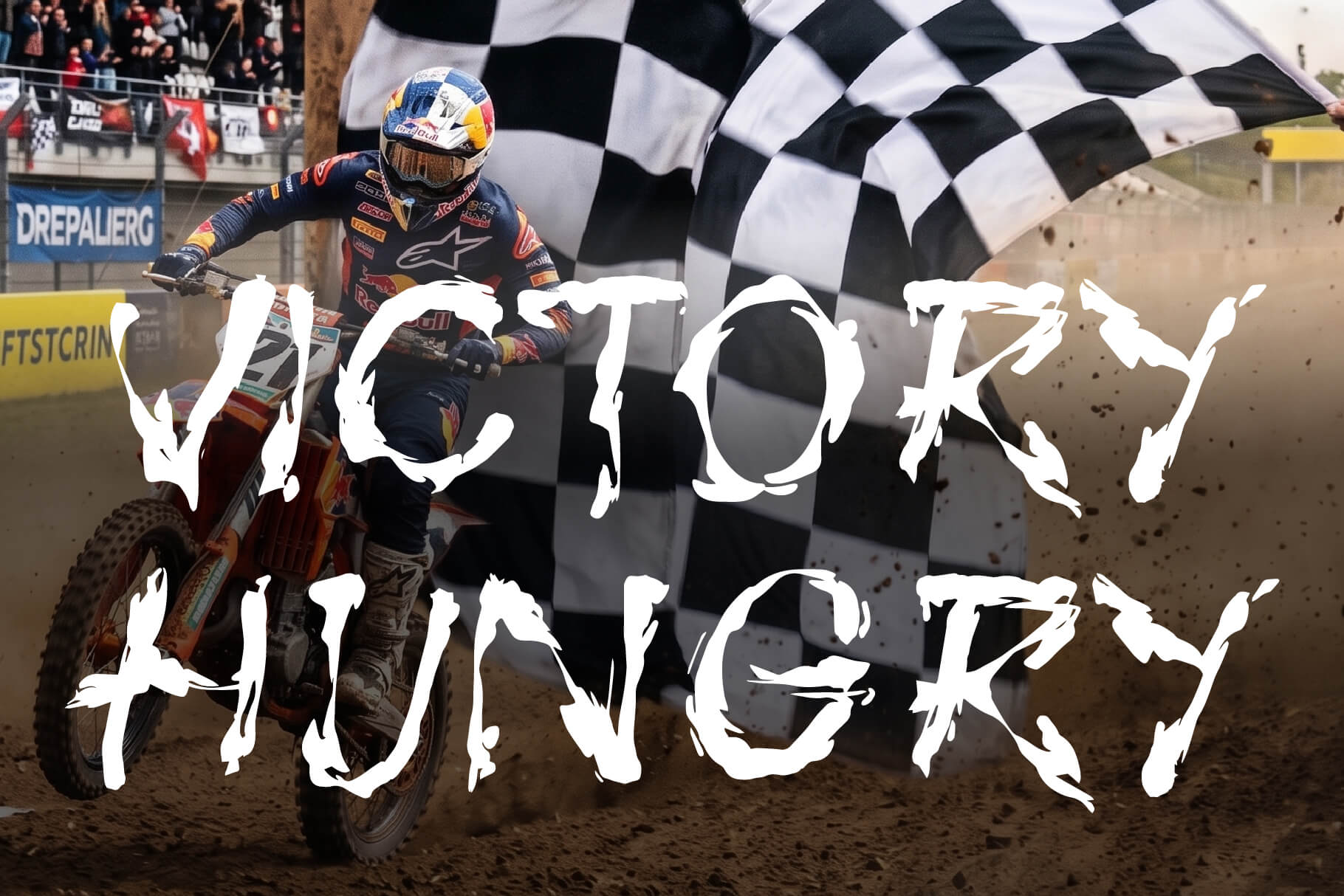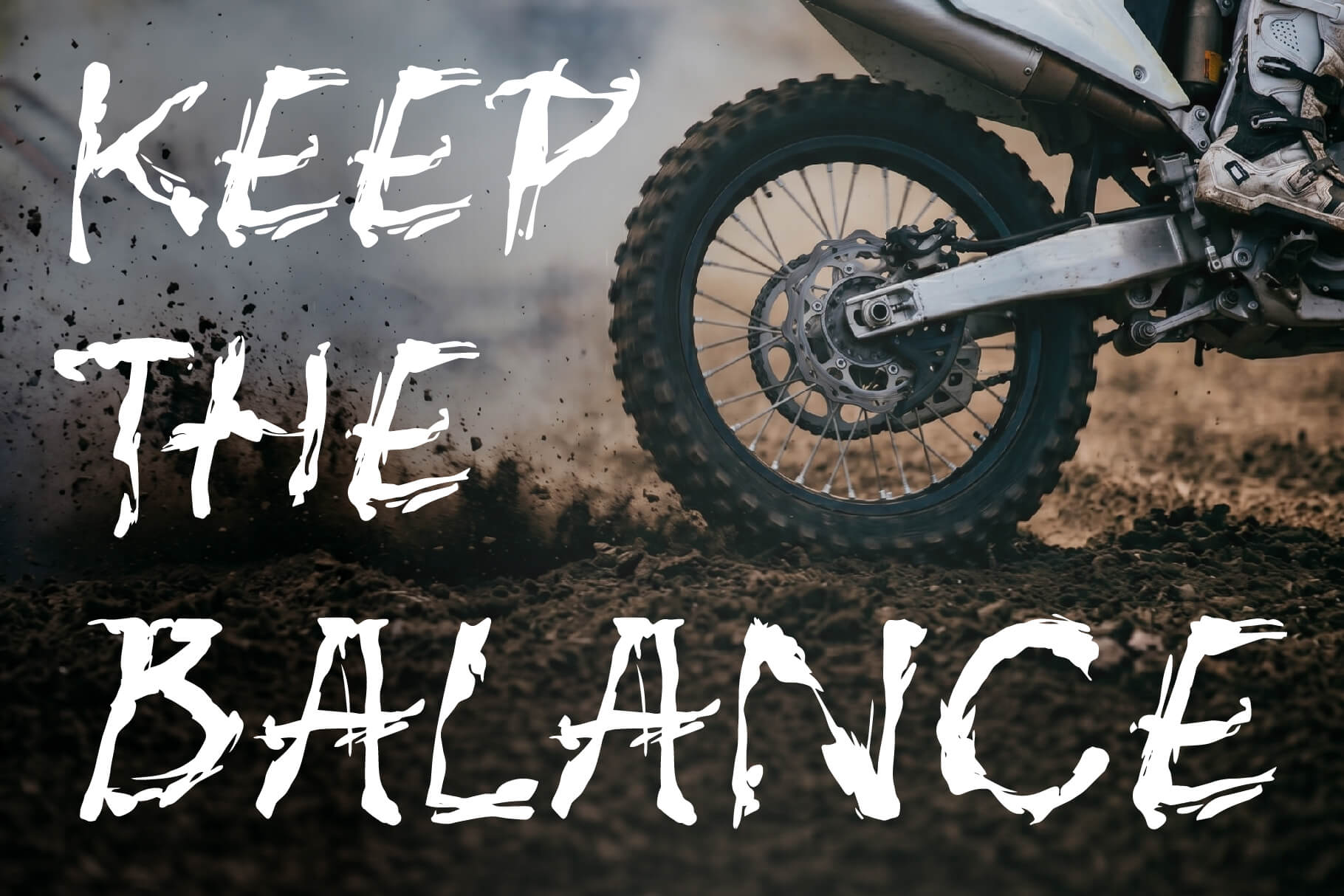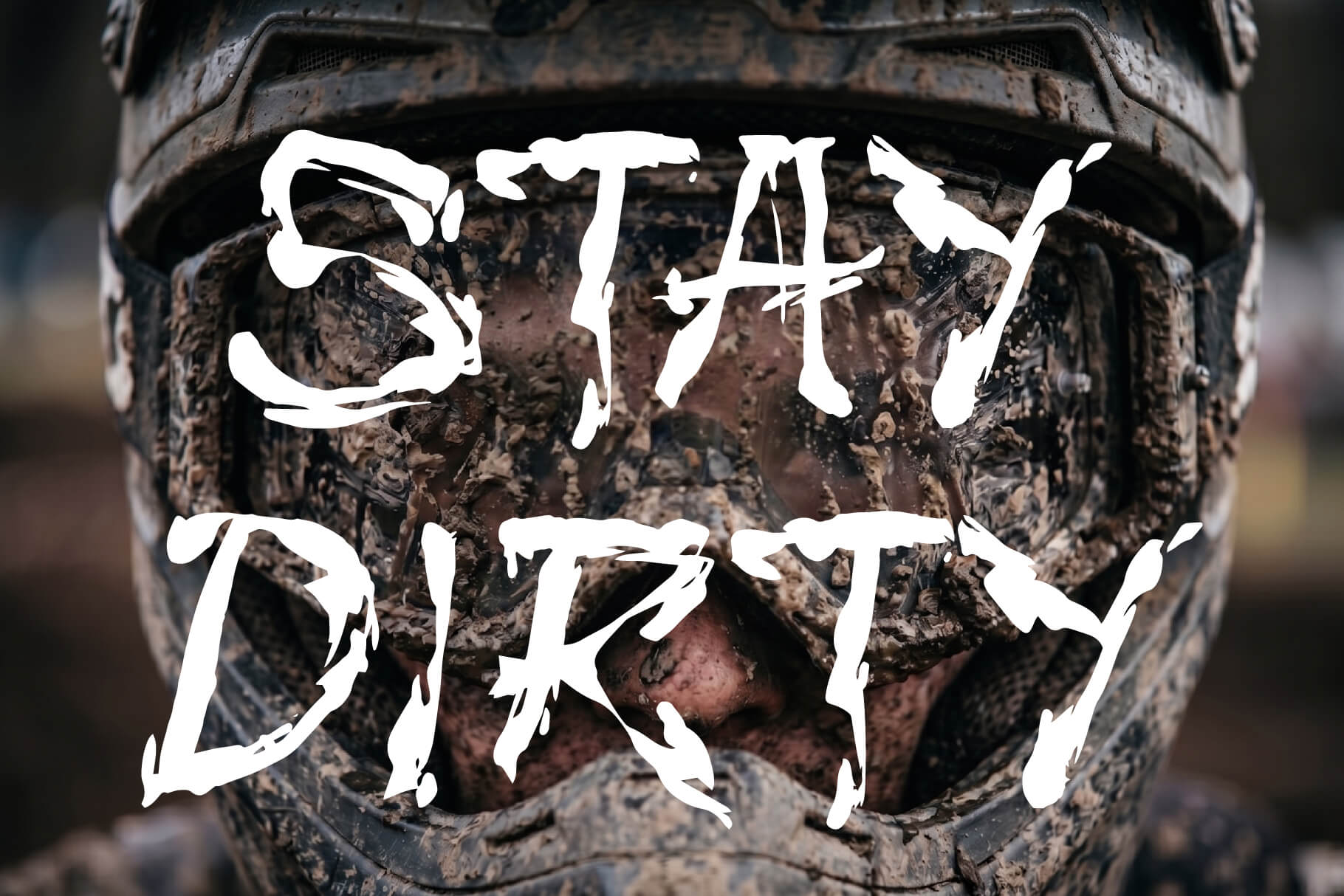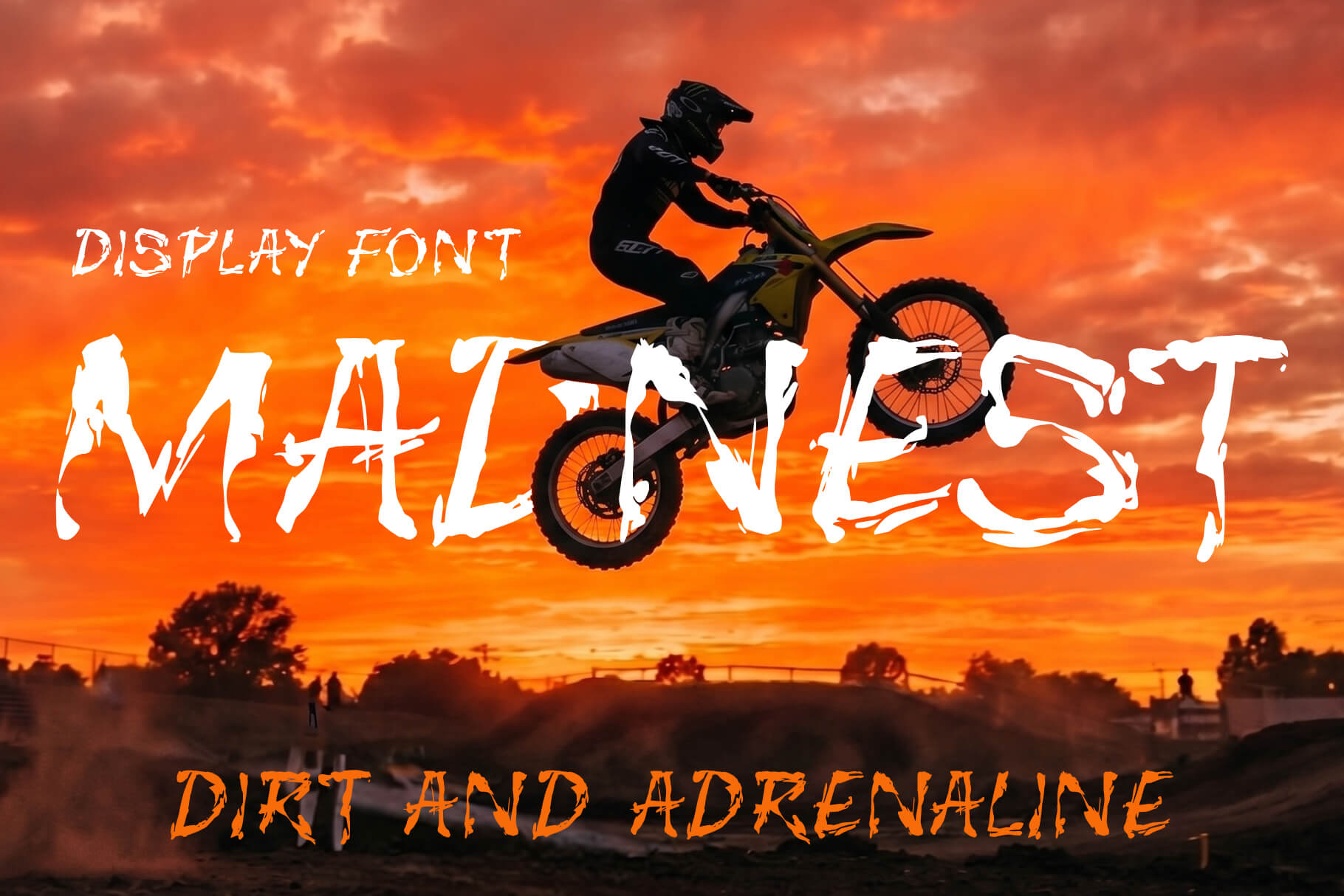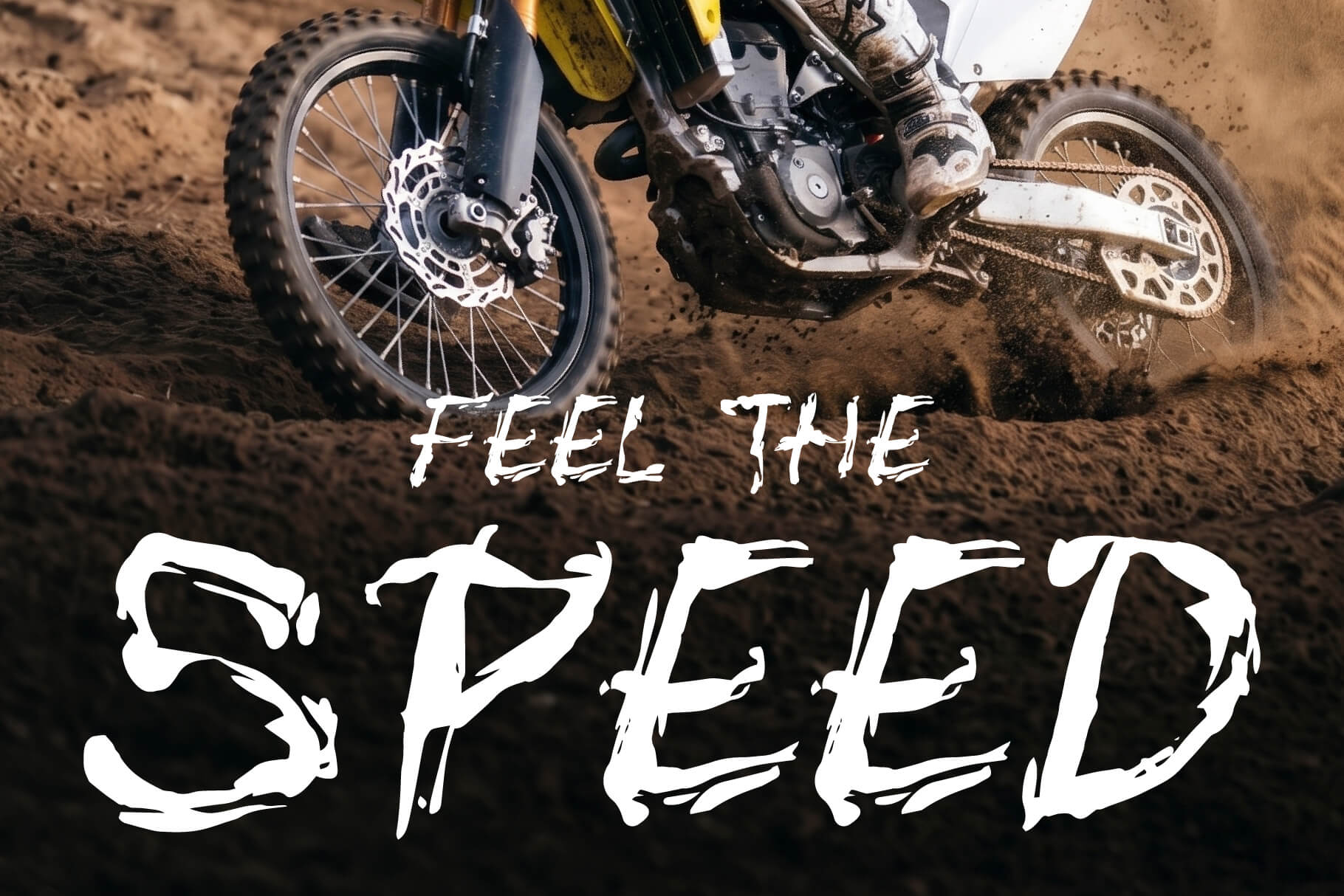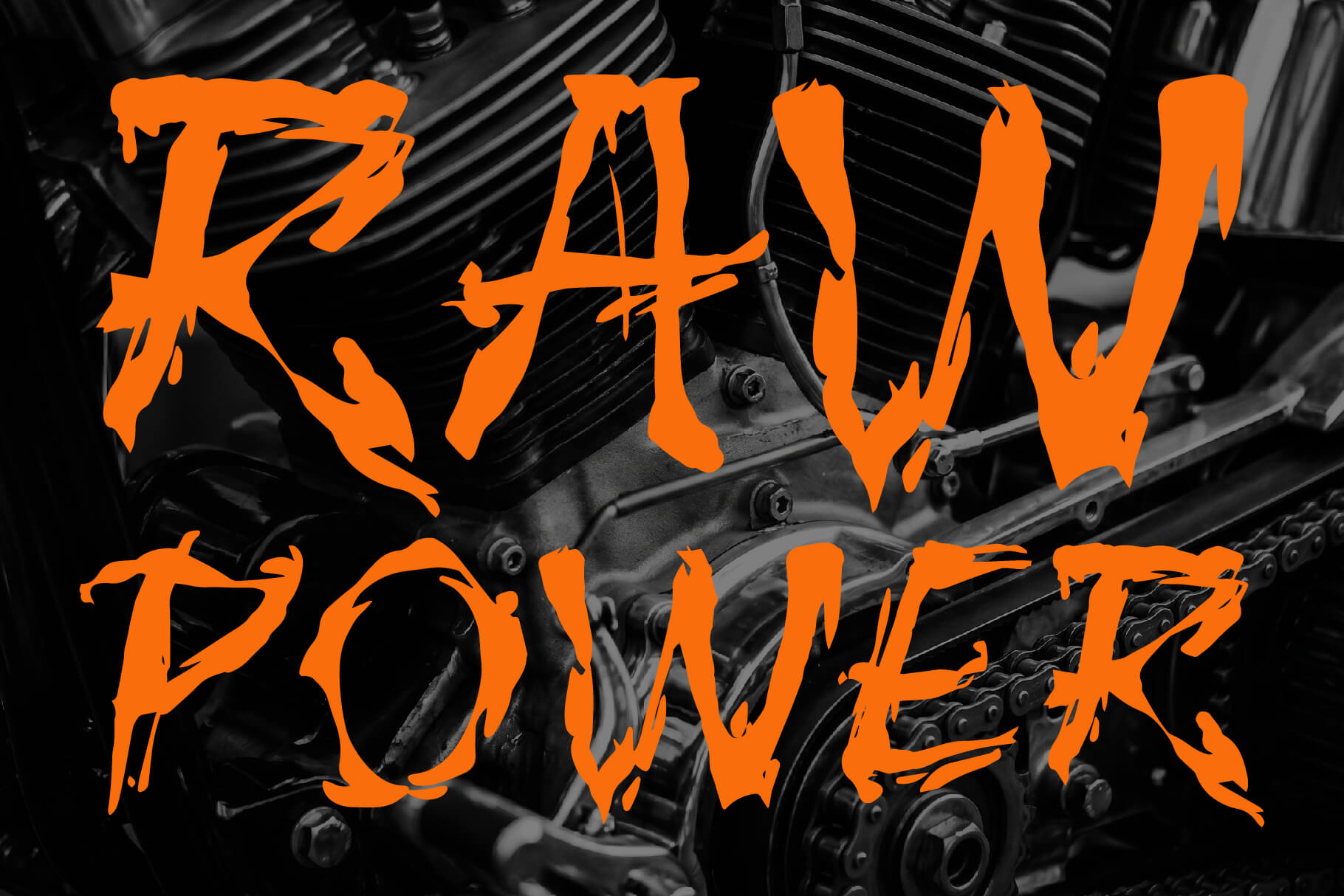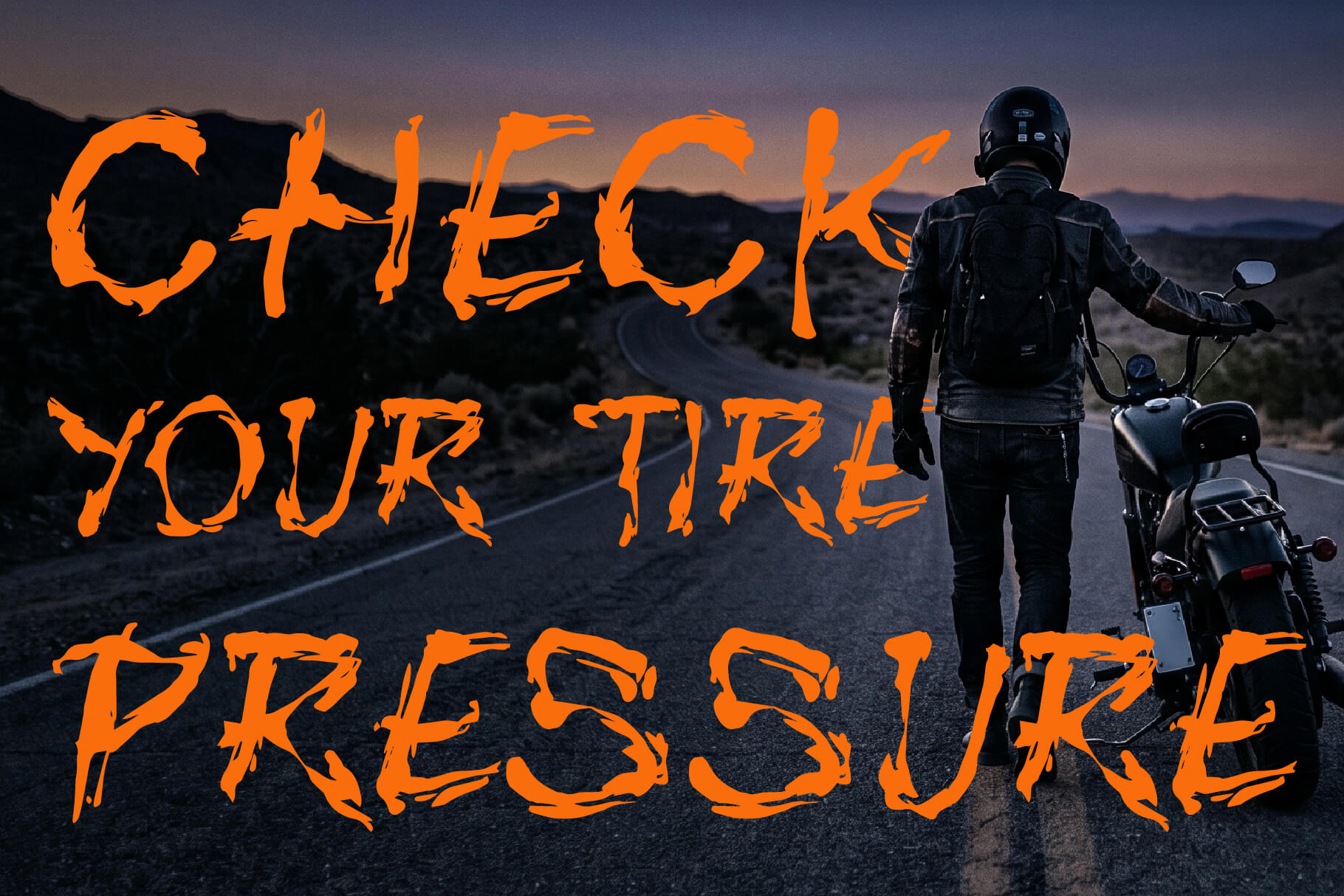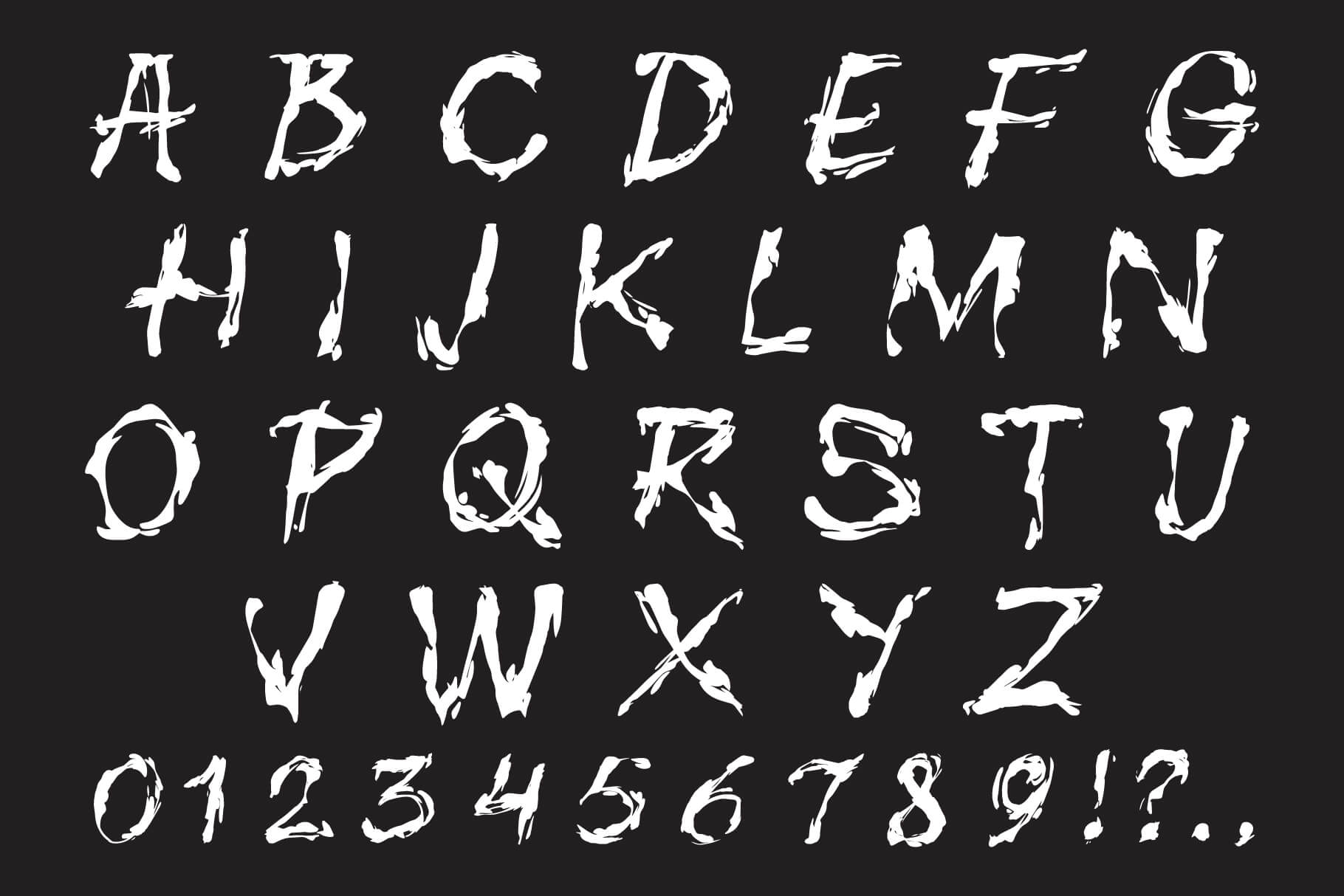
MADNEST display font
MADNEST is a bold, characterful display typeface with a playful, energetic personality.
Its quirky, expressive letterforms give layouts a fun, creative edge while staying strong and legible at large sizes.
It's the kind of face that makes a brand feel confident and full of character.
MADNEST works especially well for creative branding, posters, packaging and eye-catching headlines.
IDEAL FOR
– Creative and brand identities
– Posters and covers
– Packaging and labels
– Logos and headlines
– Social media visuals